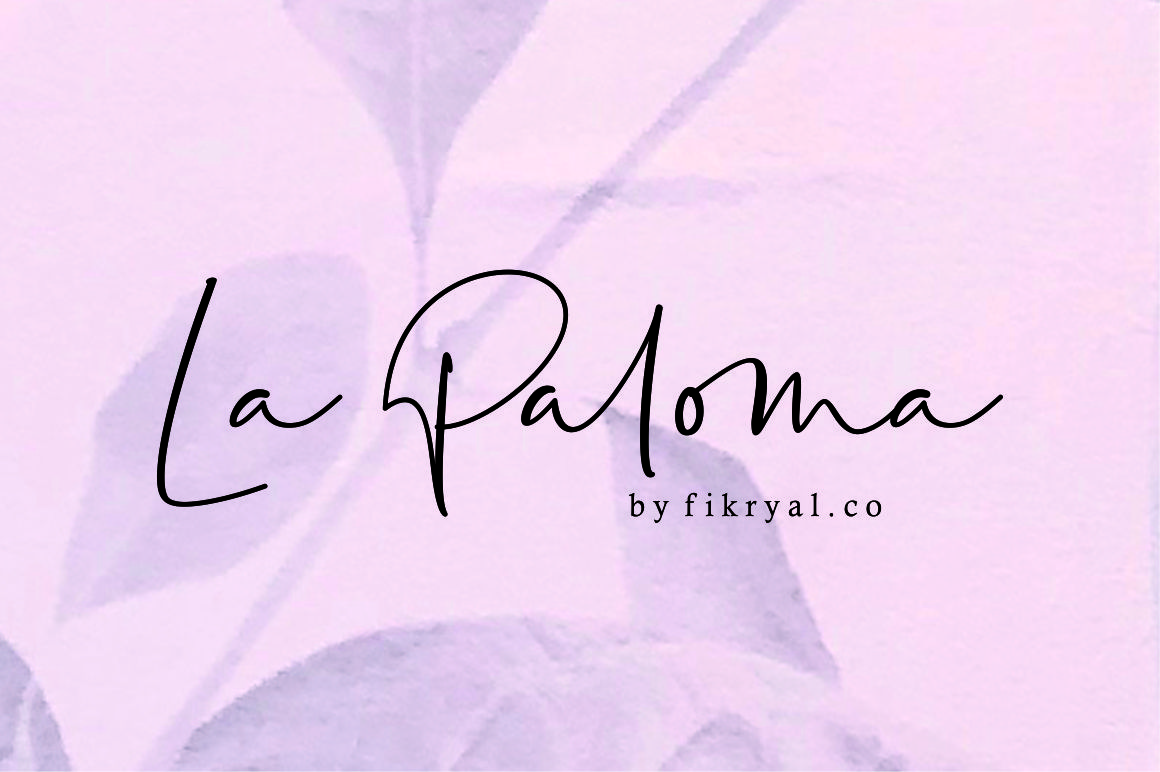
La Paloma Handwritten Font
La Paloma Handwritten Font – Free Demo
Hi Welcome 🙂 Thank you for looking La Paloma Font. Connecting script, designed to convey elegance and style. It is slender, feminine and friendly! La Paloma designed by fikryal. La Paloma is a handwritten font, this font is perfect for your needs such as: logos, posters, handwriting, mockup, magazines, business cards and others.